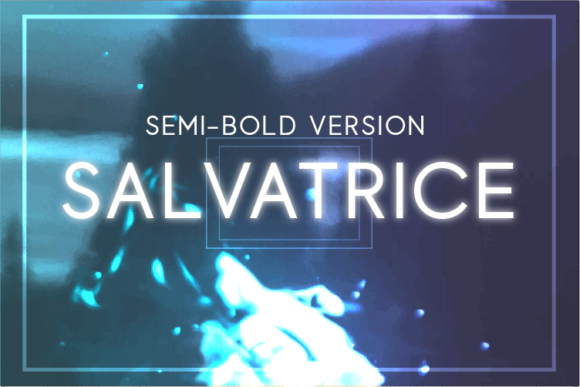
Step into the world of elegance and class with Salvatrice Semi-Bold, a sans serif font that exudes sophistication and charm. Let your designs shine with this captivating font, meticulously crafted by Huntype to bring your creative visions to life.
Salvatrice Semi-Bold is not just a font; it's an expression of your unique style. Its clean lines and refined curves lend an air of distinction to any project, whether it's a captivating logo, a sleek website design, or a magazine cover that demands attention. The possibilities are endless, limited only by the boundaries of your imagination.
With Salvatrice Semi-Bold, you can effortlessly elevate your designs to new heights. Create logos that leave a lasting impression, websites that captivate visitors, and marketing materials that resonate with your audience. Its versatility knows no bounds, making it the perfect choice for a wide range of applications.
From the delicate strokes of its lowercase letters to the bold confidence of its uppercase characters, Salvatrice Semi-Bold commands attention. Its timeless beauty transcends trends, ensuring that your designs remain relevant and captivating for years to come.
Unleash your creativity and embark on a typographic journey like no other. Experience the allure of Salvatrice Semi-Bold, and let your designs speak volumes with grace, elegance, and an undeniable touch of class. Embrace the power of typography and transform your projects into masterpieces.